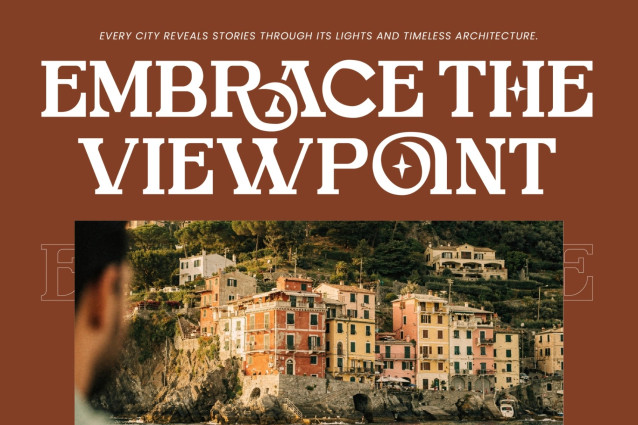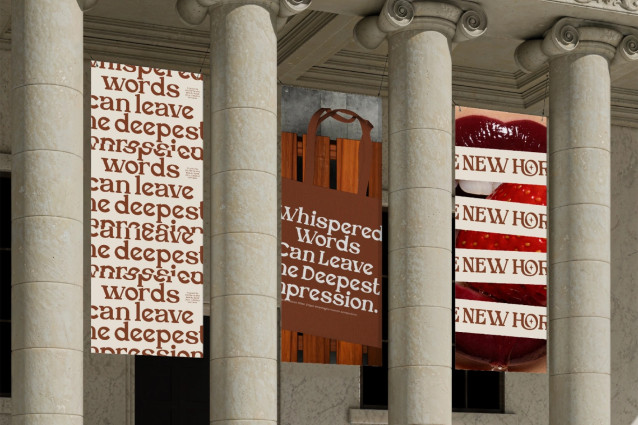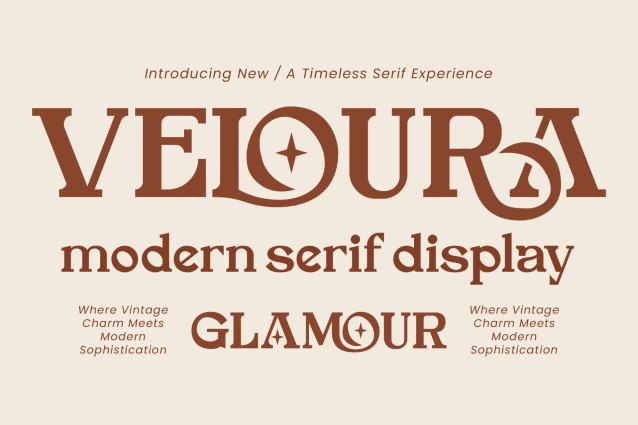
Veloura Serif Font
Veloura is a modern serif display font that blends vintage charm with contemporary sophistication. Carefully crafted with elegant proportions, refined curves, and distinctive decorative details, this typeface delivers a luxurious and timeless aesthetic that feels both classic and fresh. Featuring beautifully designed letterforms and stylish alternates, Veloura is perfect for creating high-impact typography that exudes confidence, elegance, and personality. Its unique character makes it ideal for designers seeking a premium serif font that stands out in branding, editorial, and display applications.
Inspired by the glamour of classic typography and reimagined for modern creative projects, Veloura brings a graceful balance between tradition and innovation. Whether used for logos, packaging, magazine headlines, fashion campaigns, or luxury branding, it creates a memorable visual identity with effortless sophistication.